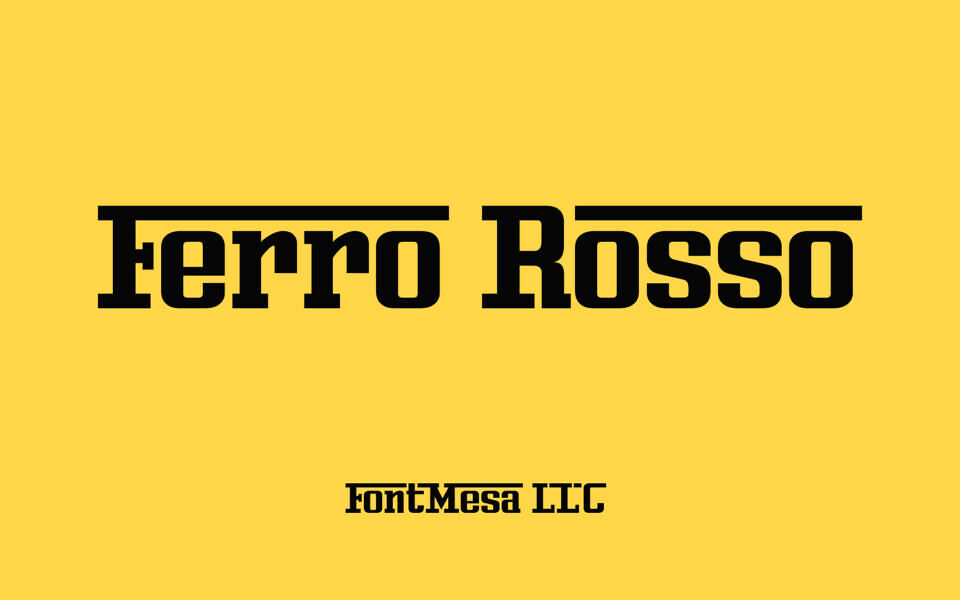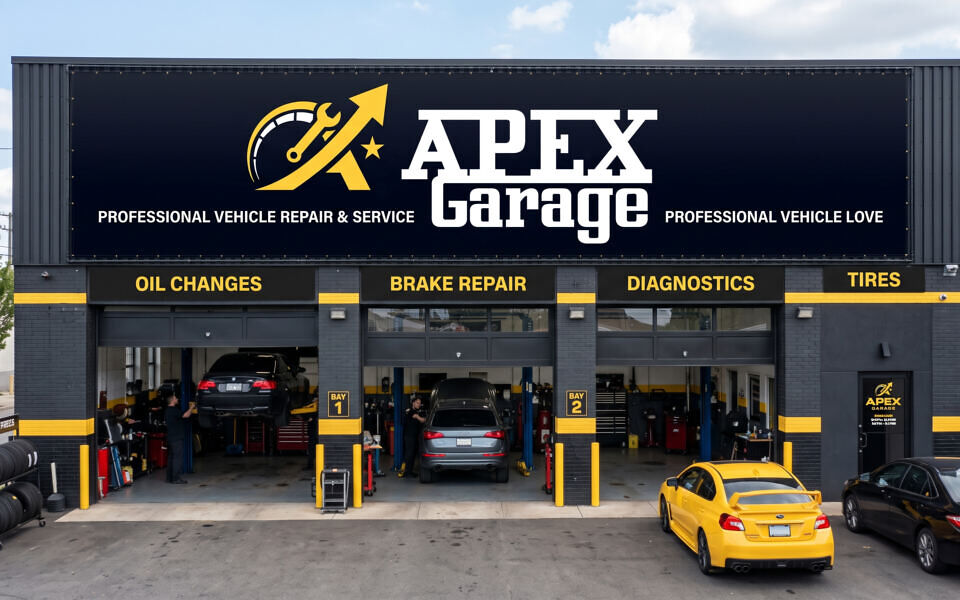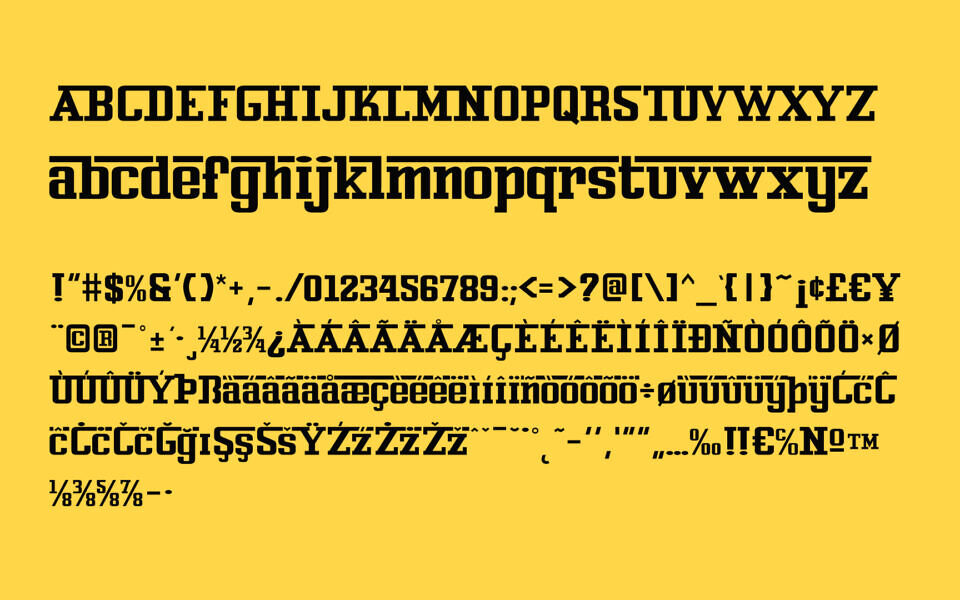
Ferro Rosso Font
Ferro Rosso is a sleek, high-octane typeface directly inspired by the iconic, classic Ferrari text logo. Capturing the spirit of Italian luxury and motorsports, this font features bold, elongated horizontal serifs and a distinct, elongated top stroke on the capital “F.”
Its aggressive yet elegant geometry radiates speed, power, and aerodynamic precision. Perfect for automotive branding, racing graphics, gaming, and high-impact headlines, Ferro Rosso brings the unmistakable prestige and adrenaline of the racetrack straight to your typography.